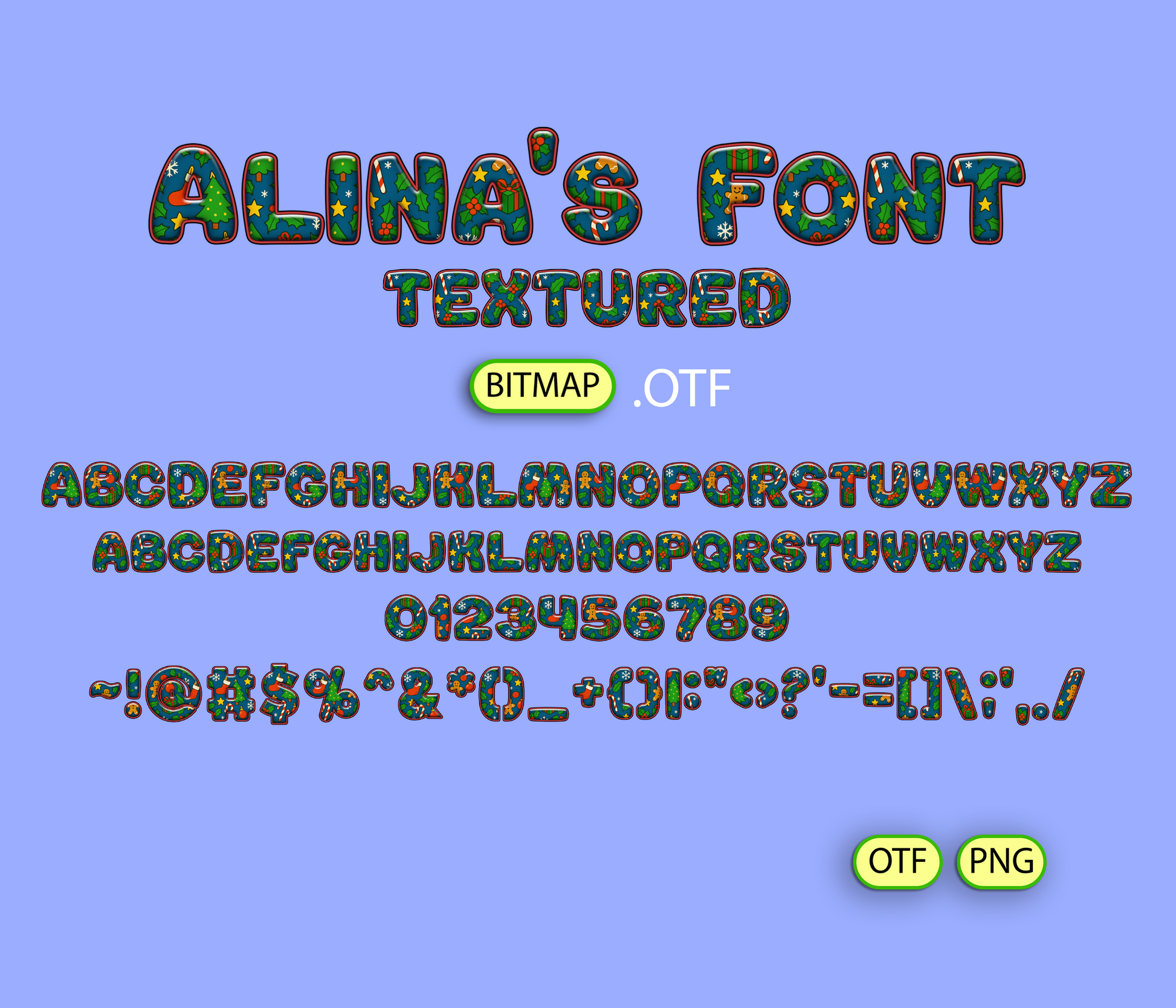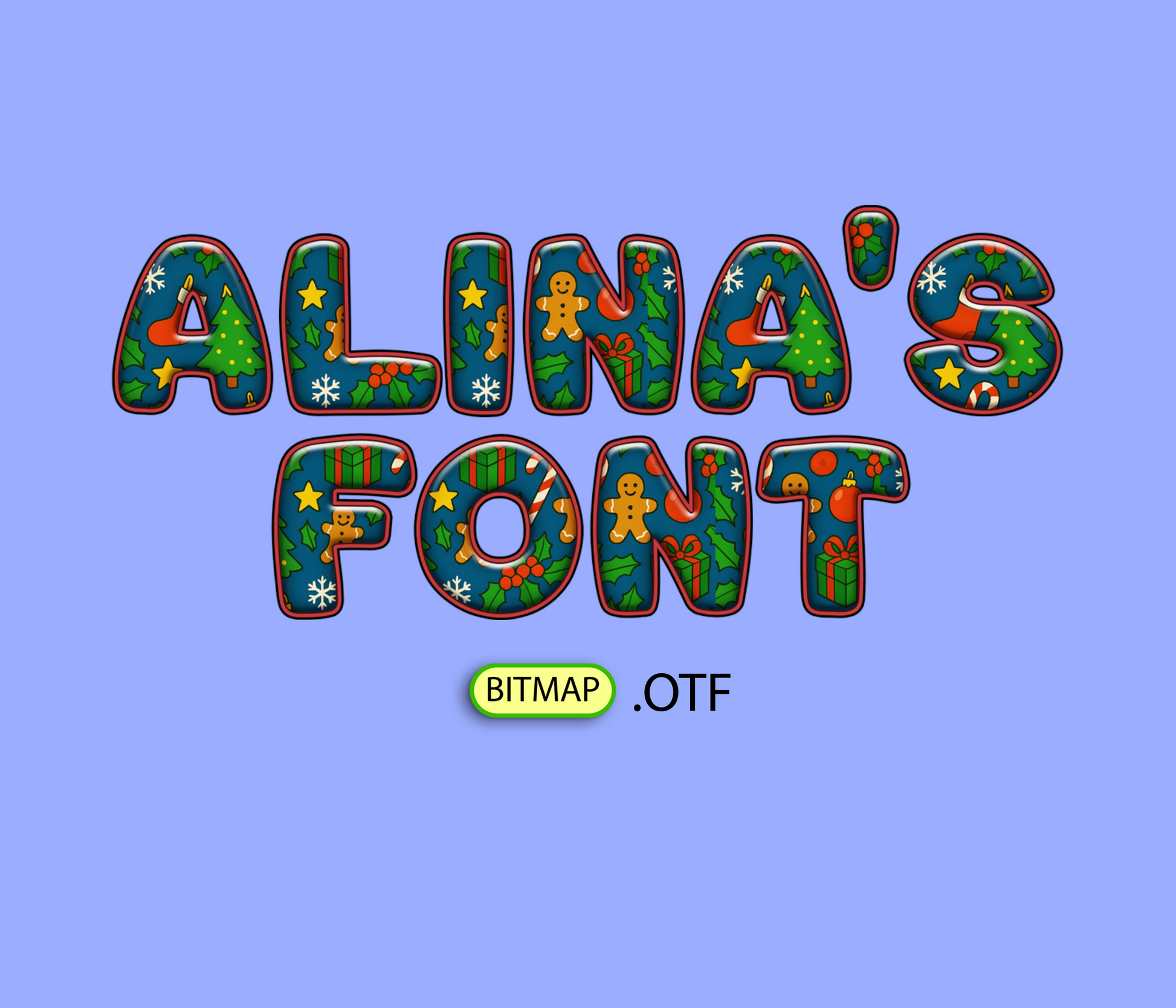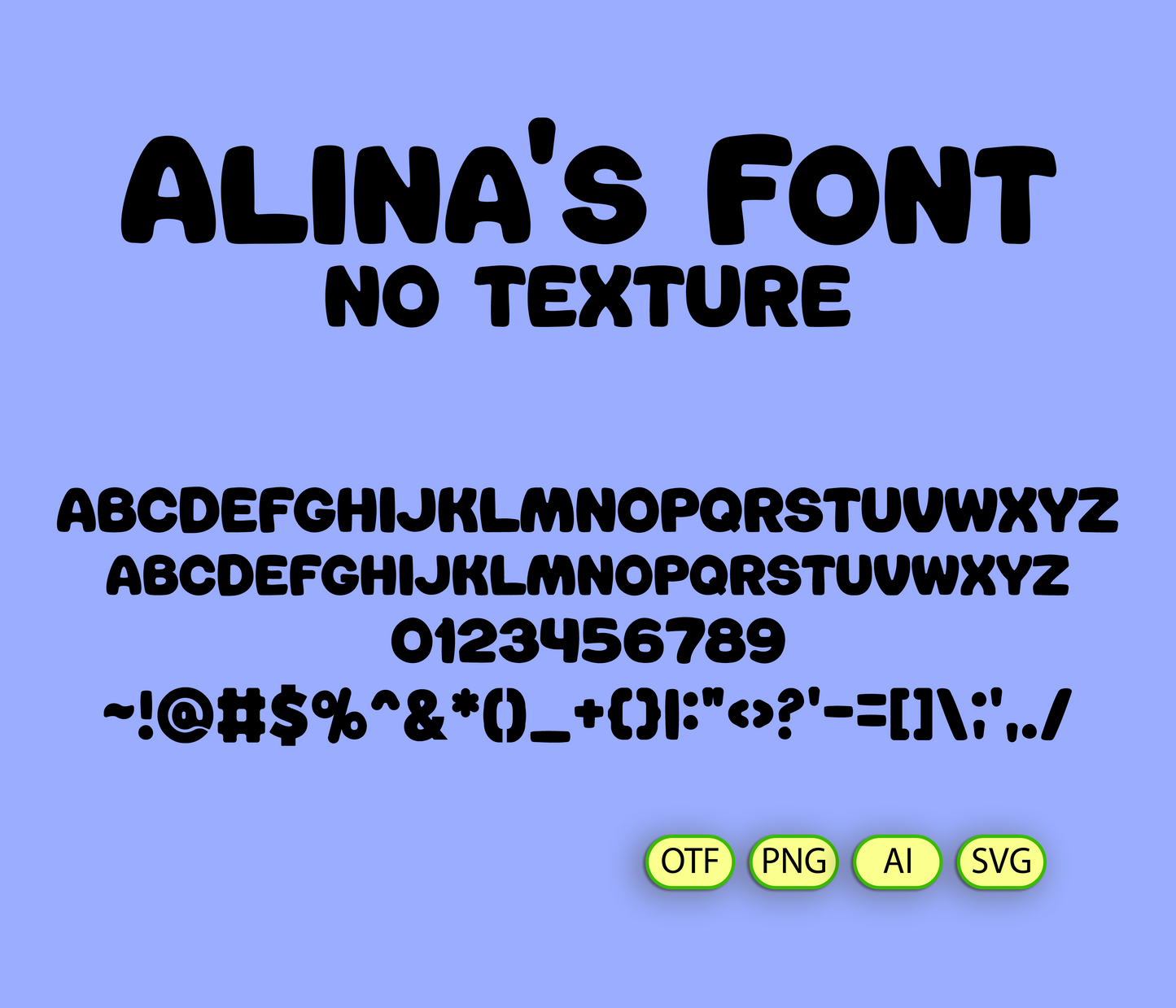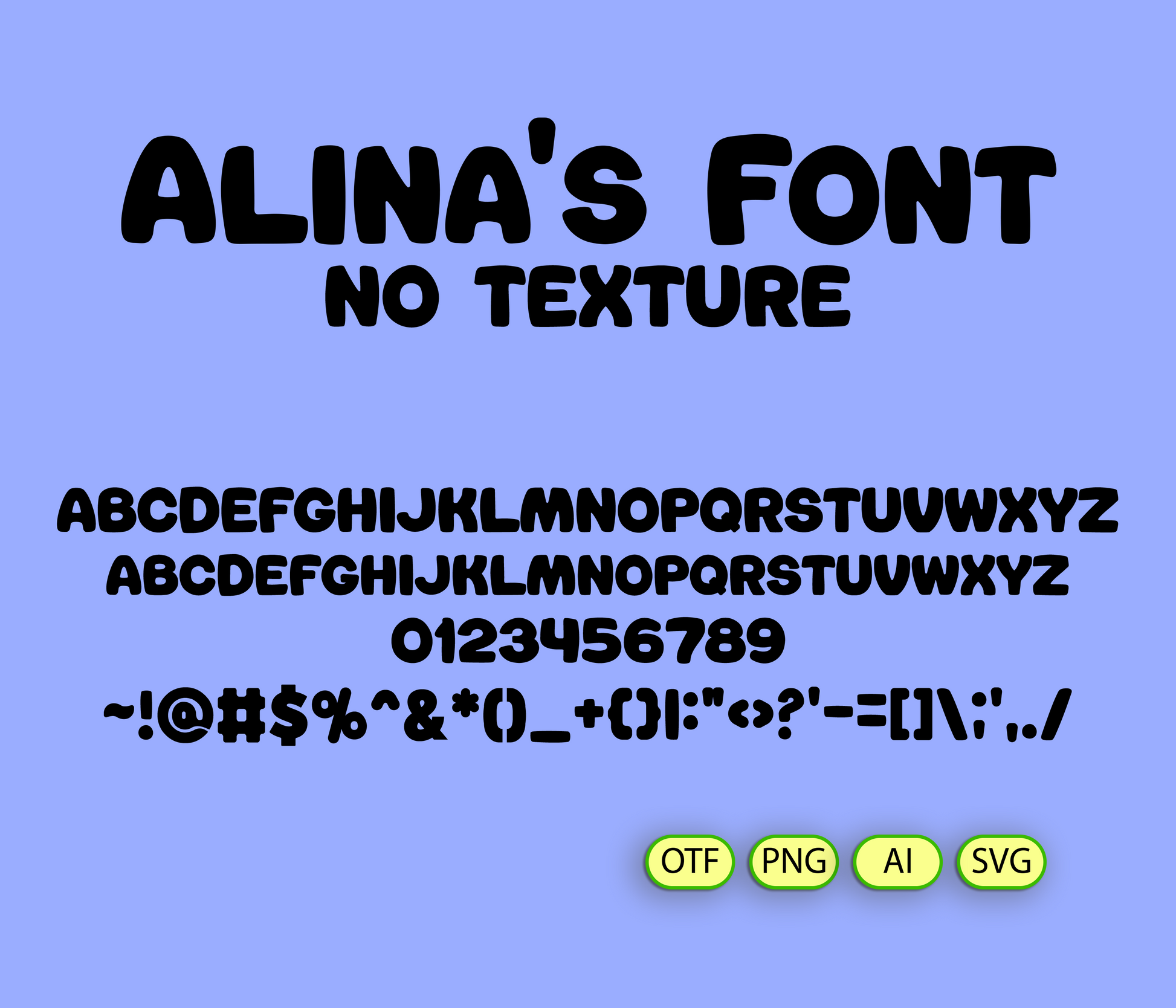
Festive Christmas Pattern Font
Step into the magical world of holiday wonder with our Festive Christmas Typeface, capturing the essence of twinkling lights, cozy fireplaces, and joyful celebrations. Perfect for holiday retailers, greeting card companies, party planners, and creative professionals, this font brings the warm, enchanting spirit of Christmas morning to your projects. Create delightful signage, seasonal products, or digital content with the golden, sparkling magic of winter wonderlands and festive gatherings.
Our Festive Christmas Typeface features elegant, snow-inspired curves and playful characters reflecting the whimsical yet timeless aesthetic of holiday traditions. Ideal for:
Our Festive Christmas Typeface includes textured and non-textured variants, ensuring compatibility with all software, including Canva. This feature allows easy incorporation into designs for users of all skill levels.